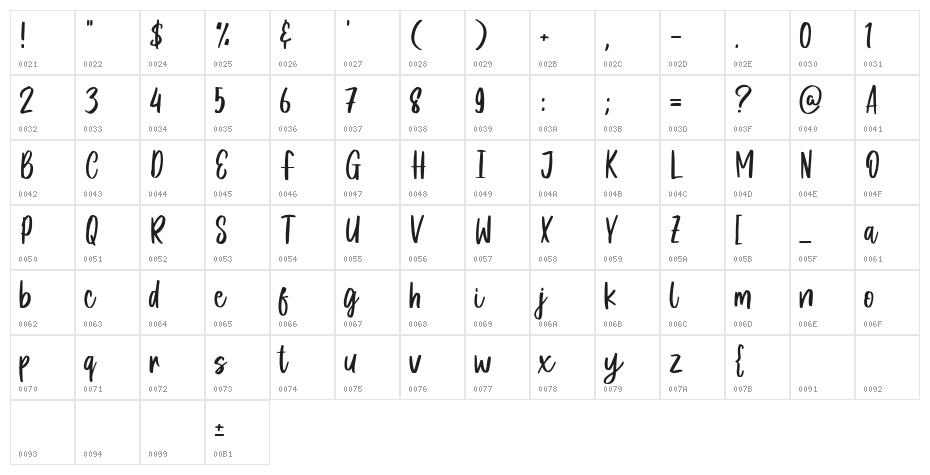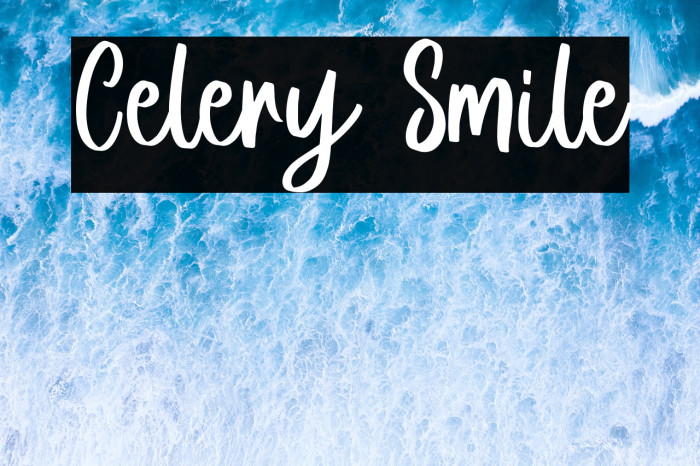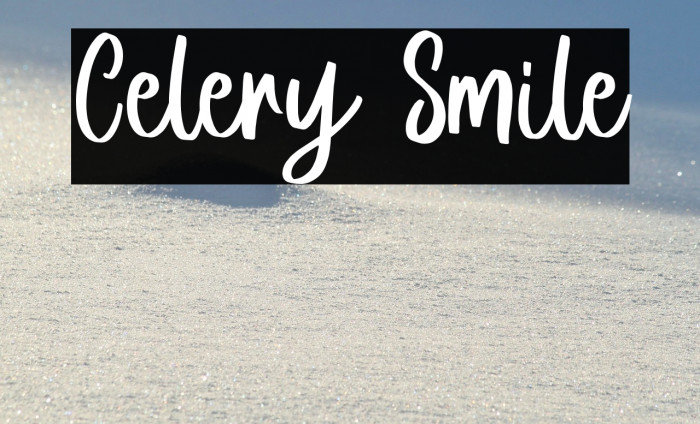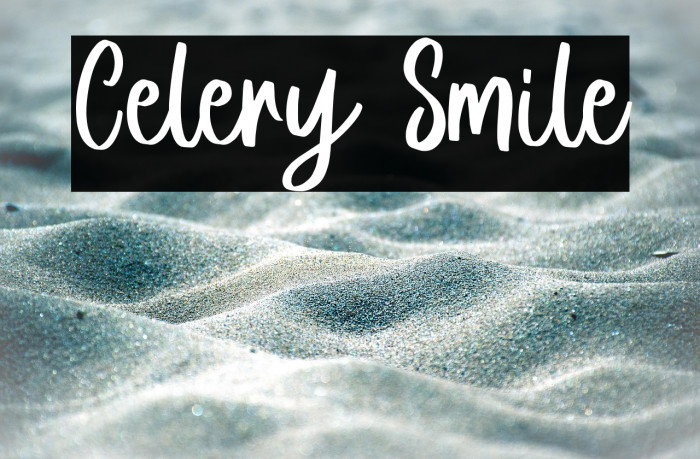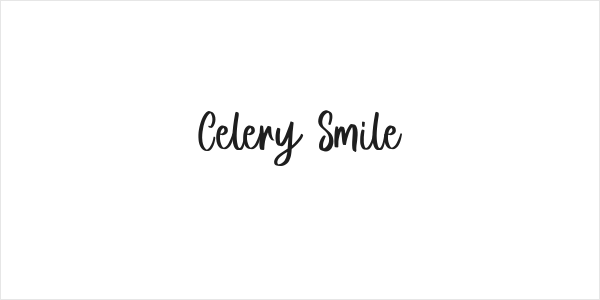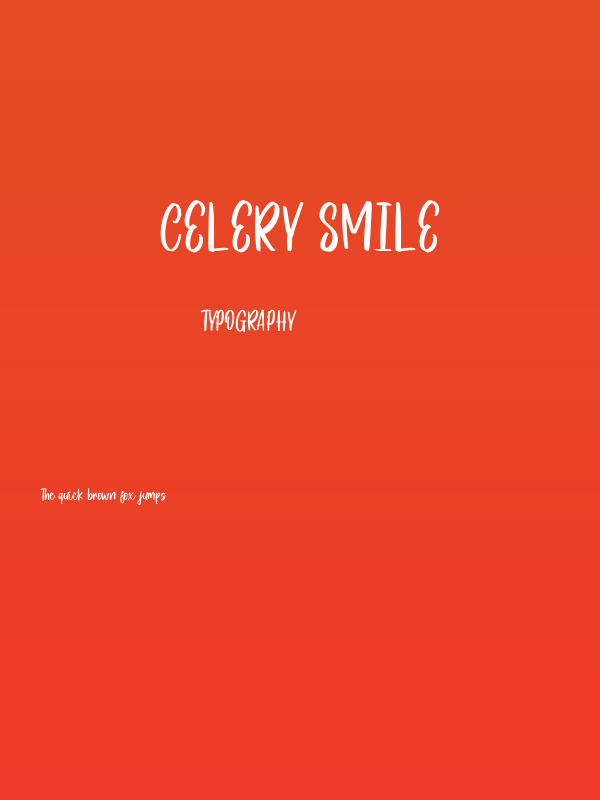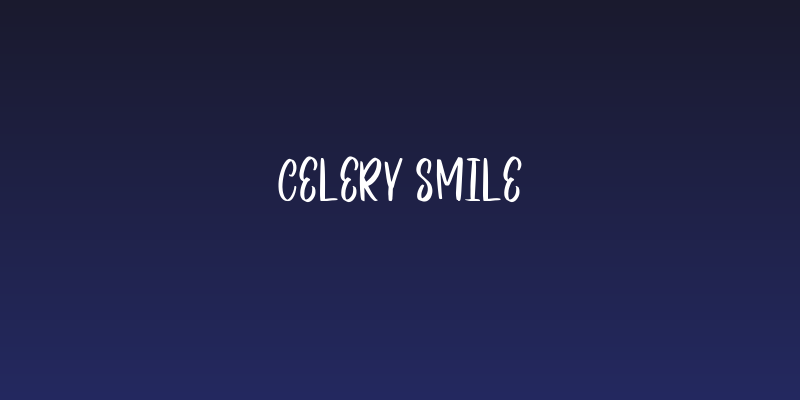
Celery Smile Font
Celery Smile Description
This font features a playful and energetic handwritten style, characterized by its bold and slightly irregular strokes. The letters have a casual and friendly appearance, with a slight slant that adds to its dynamic feel. The uppercase and lowercase letters are well-balanced, maintaining a consistent flow throughout. The numerals and special characters complement the overall style, making it versatile for various design needs. Its informal and approachable look makes it suitable for projects that require a personal touch.
| Proposed Projects | Ideal for greeting cards, social media graphics, children's books, and playful branding. |